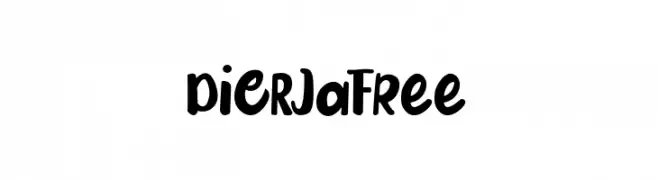
( Fonts by Vunira Design )
A playful, handwritten font with a whimsical and casual style.
A bold, playful script font with a hand-drawn, energetic style.
( Fonts by InspiraType )
A playful, hand-drawn style font with bold, rounded strokes.
( Fonts by InspiraType )
A playful, whimsical font with bold, rounded strokes and quirky letterforms.
( Fonts by InspiraType )
A playful, hand-drawn font with bold, irregular strokes and a whimsical style.
( Fonts by InspiraType )
A bold, playful font with a hand-drawn, informal style.
( Fonts by InspiraType )
A playful, rounded handwritten font with a bold presence.
( Fonts by InspiraType )
A playful, rounded handwritten font with a bold and friendly style.
( Fonts by Type Factory )
A playful, bold font with rounded edges and a hand-drawn style.
( Fonts by Type Factory )
A bold, sketch-style decorative font with a playful and artistic appearance.